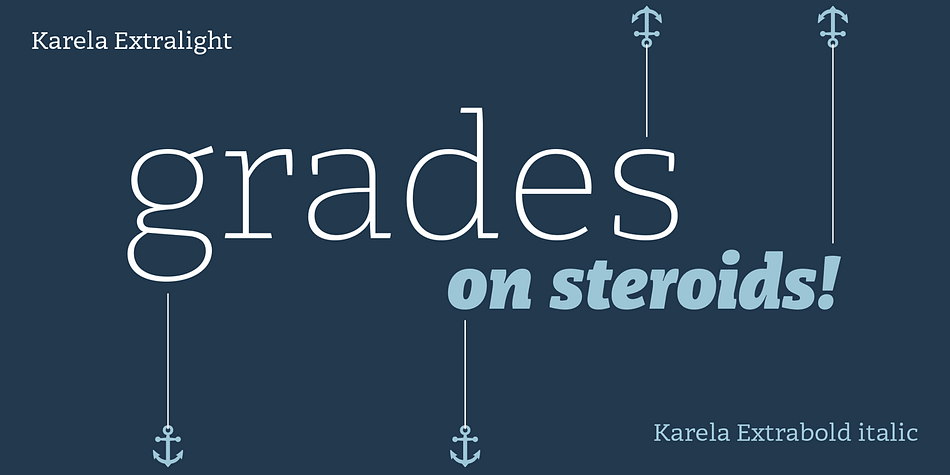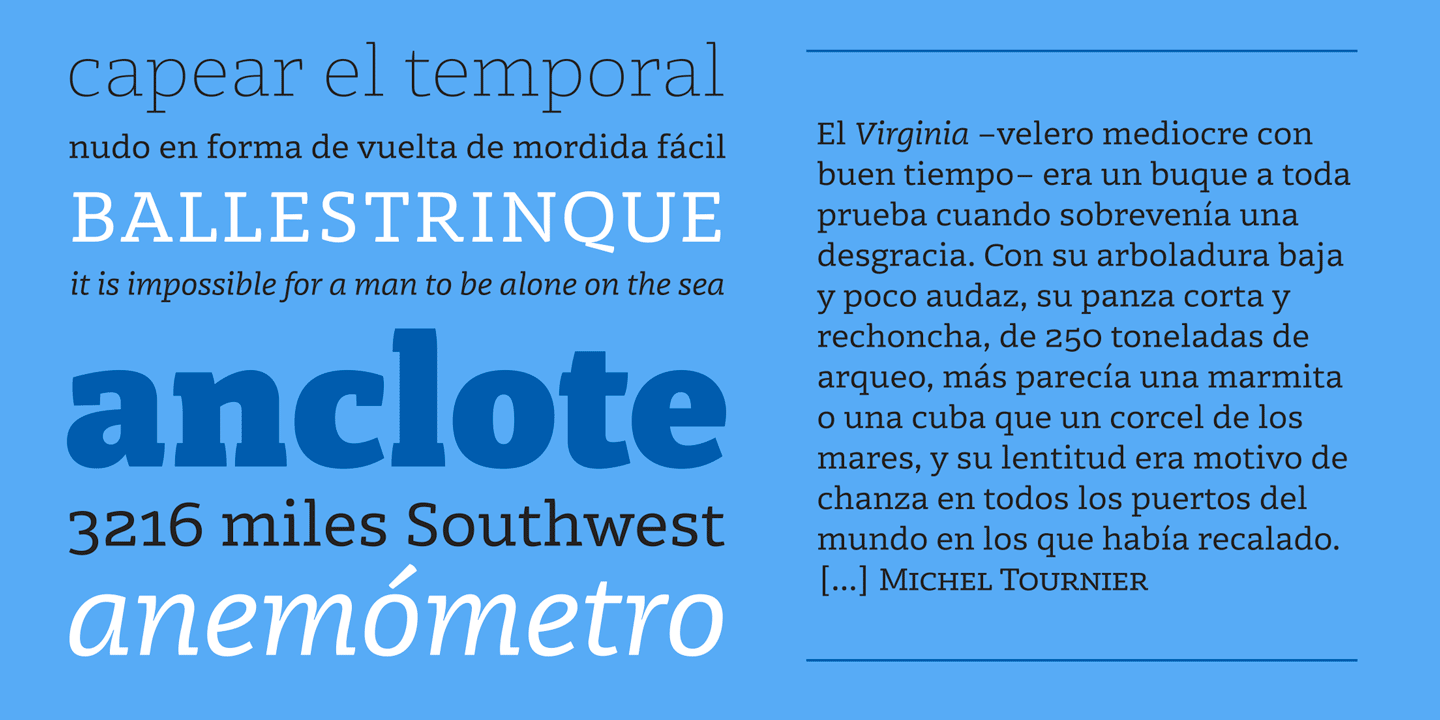
Karela
Karela is a slab serif font family. This typeface has sixteen styles and was published by Blancoletters.
Karela is a humanist slab serif family. Karela is also the Basque word for gunwale, this is, the widened edge at the top of the side of a boat, where the edge is reinforced with wood or other material and to which the thwarts are attached. Gunwales resemble the way slab serifs reinforce vertical stems giving a more robust appearance to the letters. The sturdy, solid and often mechanical structure that is customary in slab serif or mechanistic typefaces is softened in Karela applying subtle tweaks as: humanist proportions, slightly curved endings in ascenders, and curved edges in serifs.
The influence of calligraphy is noticeable all over the character set, especially in counters and letters with instrokes like “m”, “n” and “r”, and it becomes explicit in the italics. On the other hand, its low contrast, generous x-height and the constant width of characters across weights makes it very convenient for editorial uses when low resolution is a concern. Karela pursues to give a human touch to a strong and highly functional structure. It seeks for the ideal combination of strength, precision and warmth of the wooden parts painstackingly handcrafted by ancient boat builders.
Besides its 12 standard styles, Karela offers also four additional fonts called “grades”. Grades are subtle changes in stroke weight in order to compensate for differences in printing media or display conditions of text layouts. To minimize these subtle changes without a reflow of the text they have to be designed with the same character width of the base style. Karela offers 4 grades for its Regular weight: Grade Minus 5, Grade Minus 5 Italic, Grade Plus 5 and Grade Plus 5 Italic. This makes possible to counteract the effect of changes in paper, temperature, paper, background color… In addition, Karela takes this no‑reflowing idea from grades and extends it to the whole range of styles, allowing to play with any of its weights without undesirable text reflows. Enjoy the layout stability while you experiment and play with variations!
Karela presents also a wide range of Opentype features for a professional text layout.